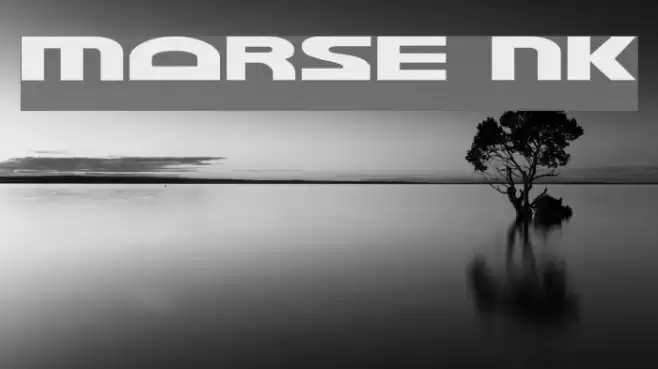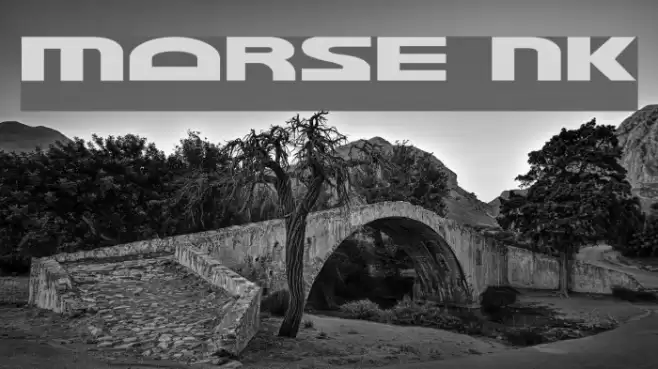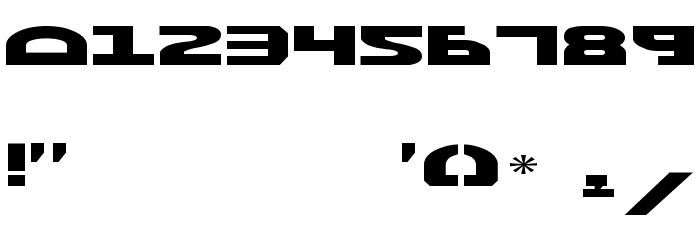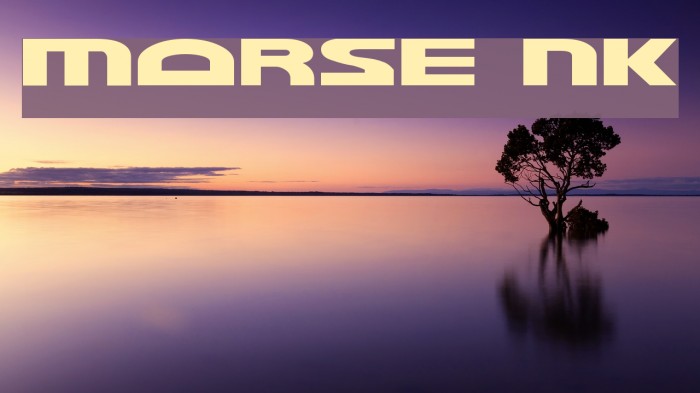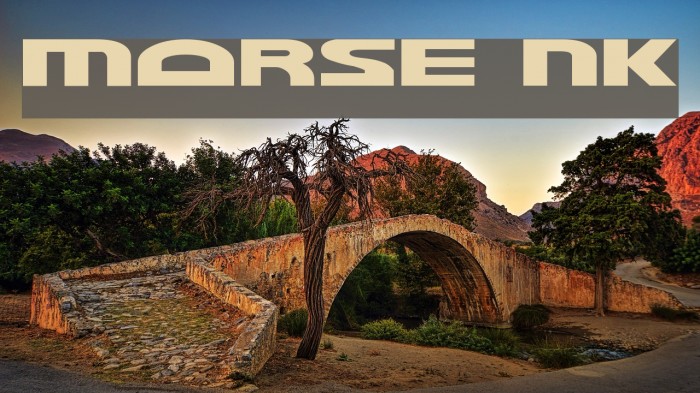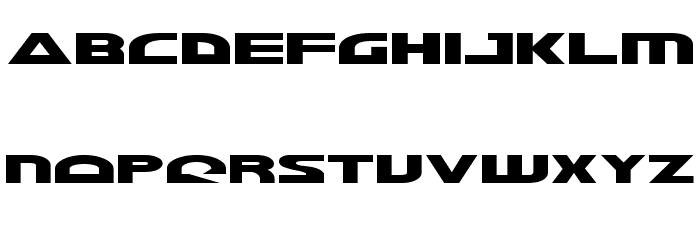
Morse NK Font
Morse NK Description
This font features a bold and futuristic design with geometric shapes and sharp angles. The uppercase letters are characterized by their wide, blocky appearance, while the lowercase letters maintain a consistent style with slightly more rounded edges. The numbers are equally bold and maintain the geometric theme, making them highly legible. Special characters are distinct and match the overall aesthetic, providing a cohesive look. The font's unique style makes it stand out, ideal for projects that require a modern and edgy feel.
A bold, futuristic font with geometric shapes and sharp angles from Stencil fonts.
- Proposed Projects: Ideal for sci-fi themed designs, technology branding, video game titles, and modern posters.